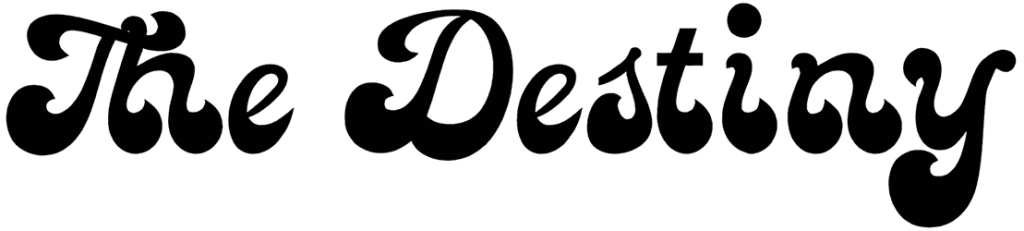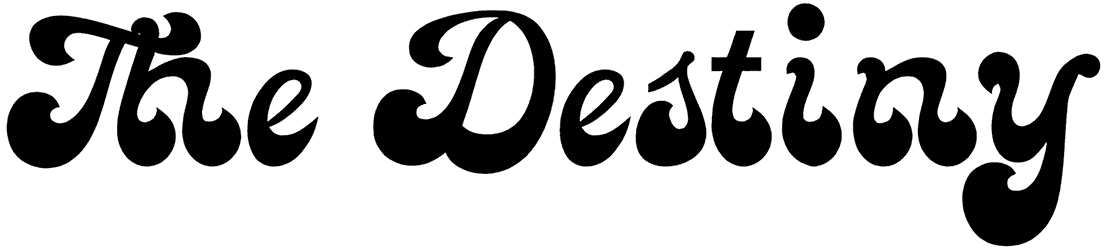
The Destiny Font
Are you ready to rock and roll your upcoming project, accompanied by a groovy font? Then you should look at The Destiny with a thick, eye-catching display that can perk people up when it appears and leave an unforgettable memory.
Suitable to convey a sense of happiness and excitement. This font takes your design to the top and will be perfect for stickers, posters, T-shirt prints, magazines, and logotypes.